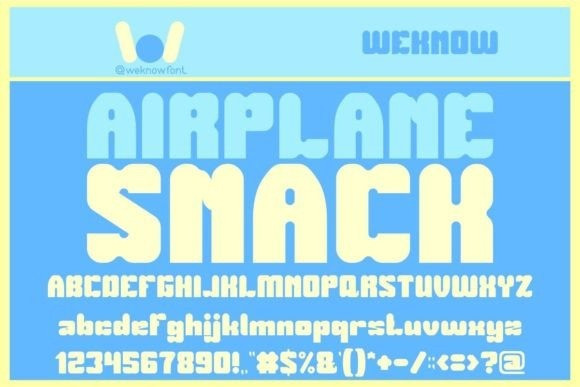
Airplane Snack Font
Airplane Snack Font is a fun and quirky display font. Add this chunky lettered font to your designs and notice how it makes them come alive!